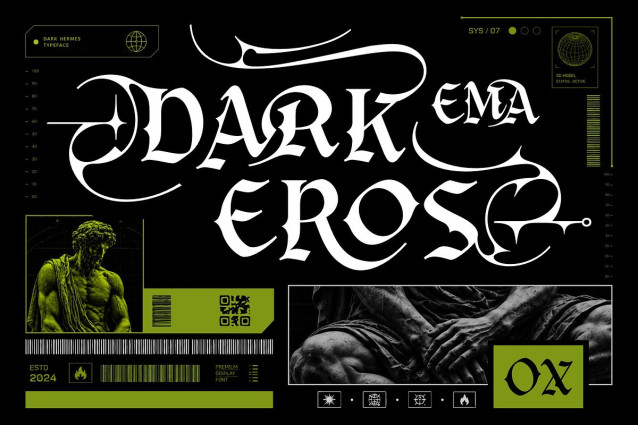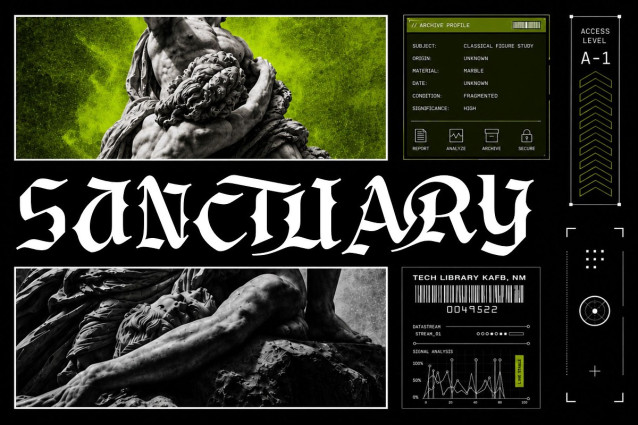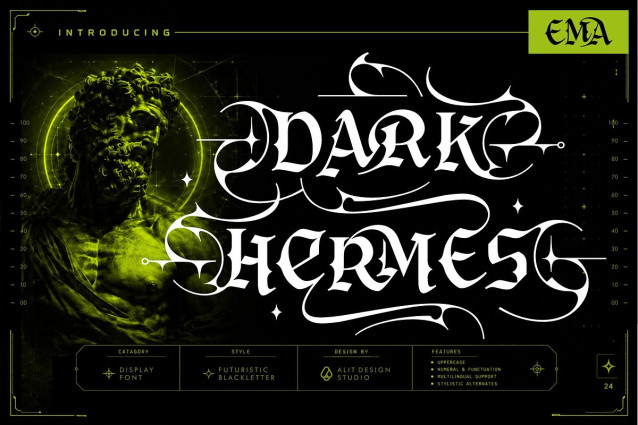
Dark Hermes Font
Dark Hermes Font is a highly versatile display font designed for high-impact projects. It features comprehensive OpenType features, including beautiful alternative characters (stylistic alternates) and unique ligatures that allow you to create custom typographic layouts effortlessly.